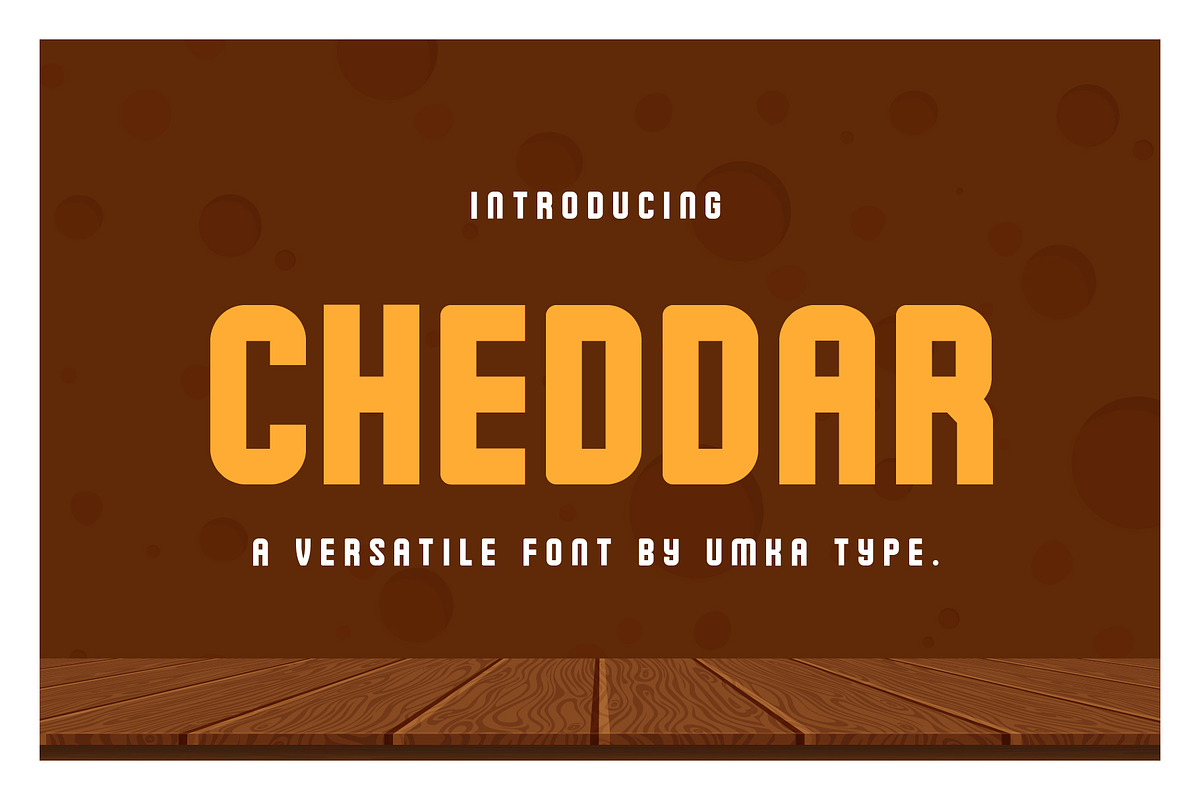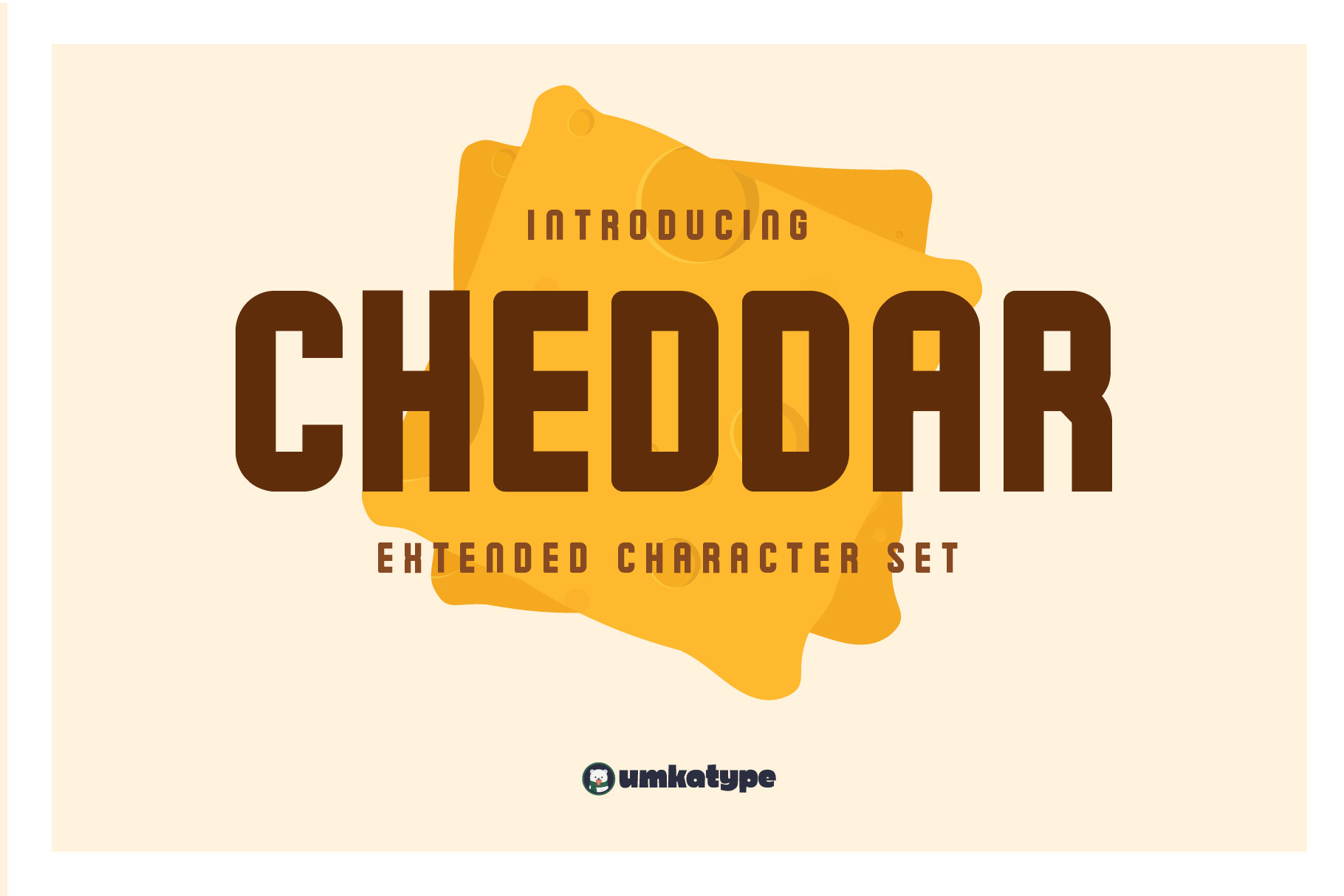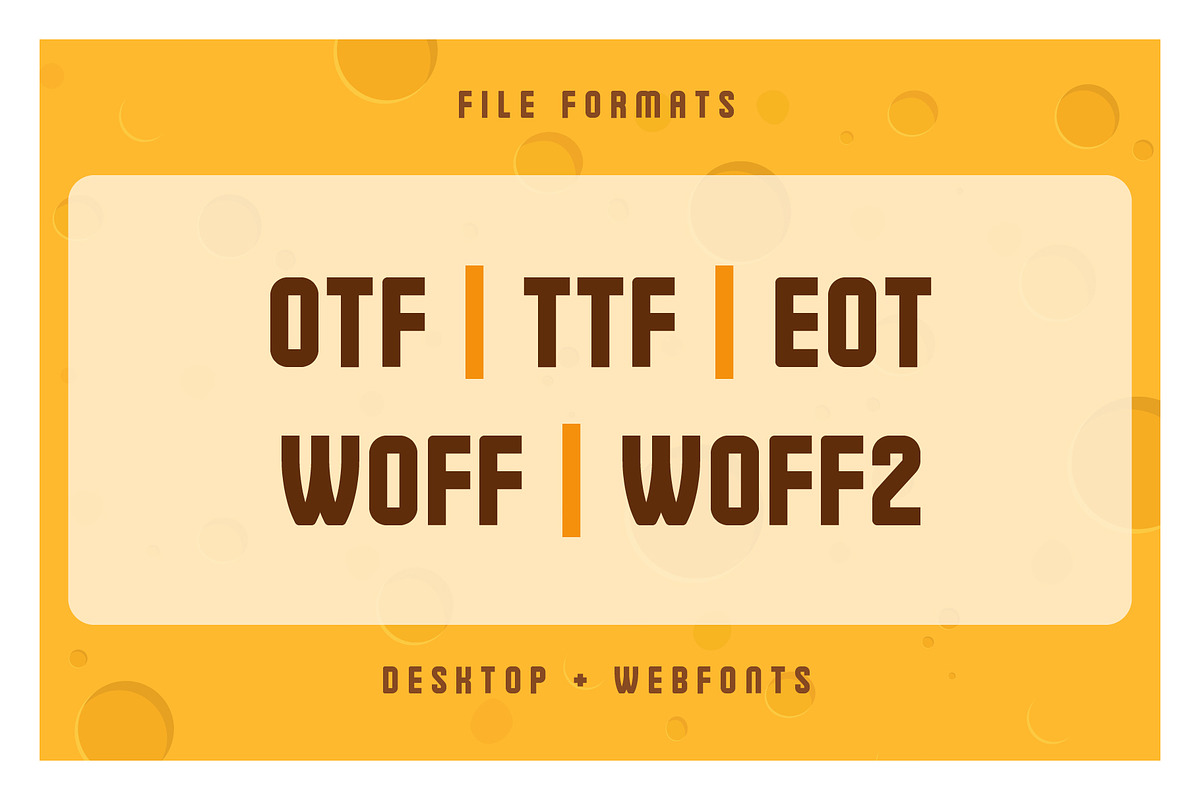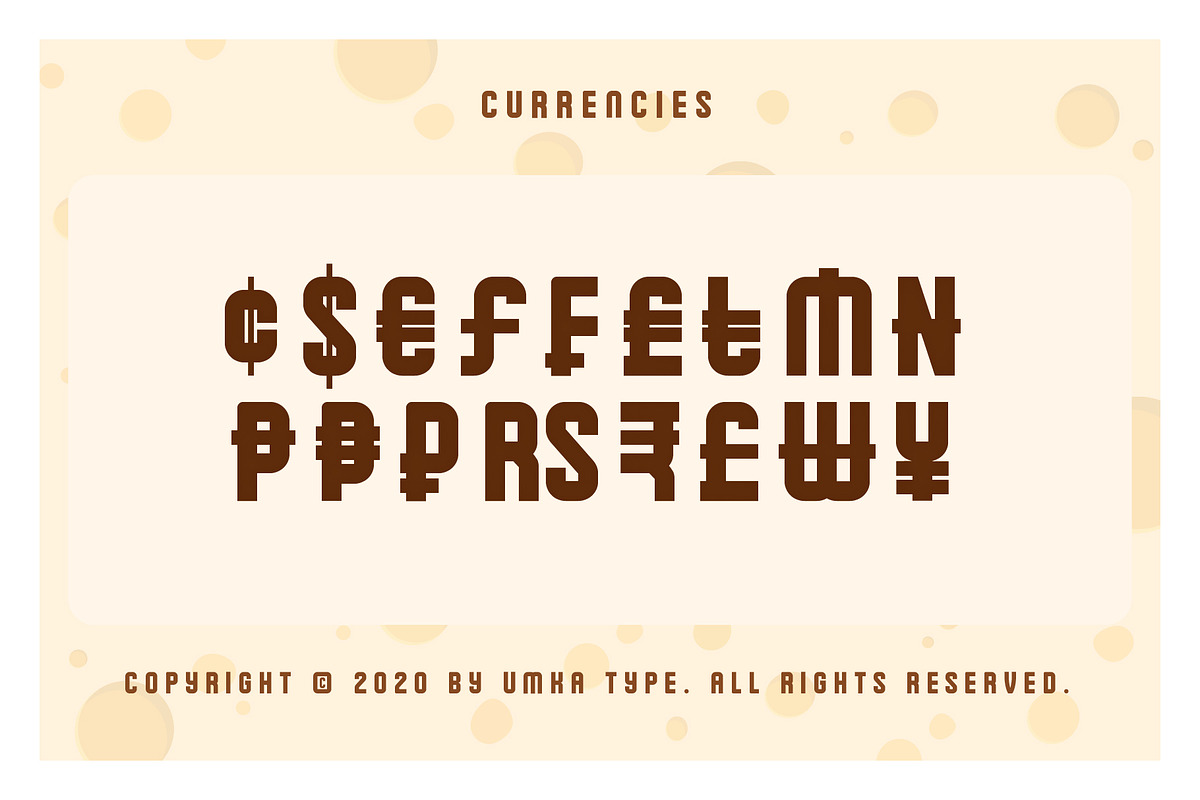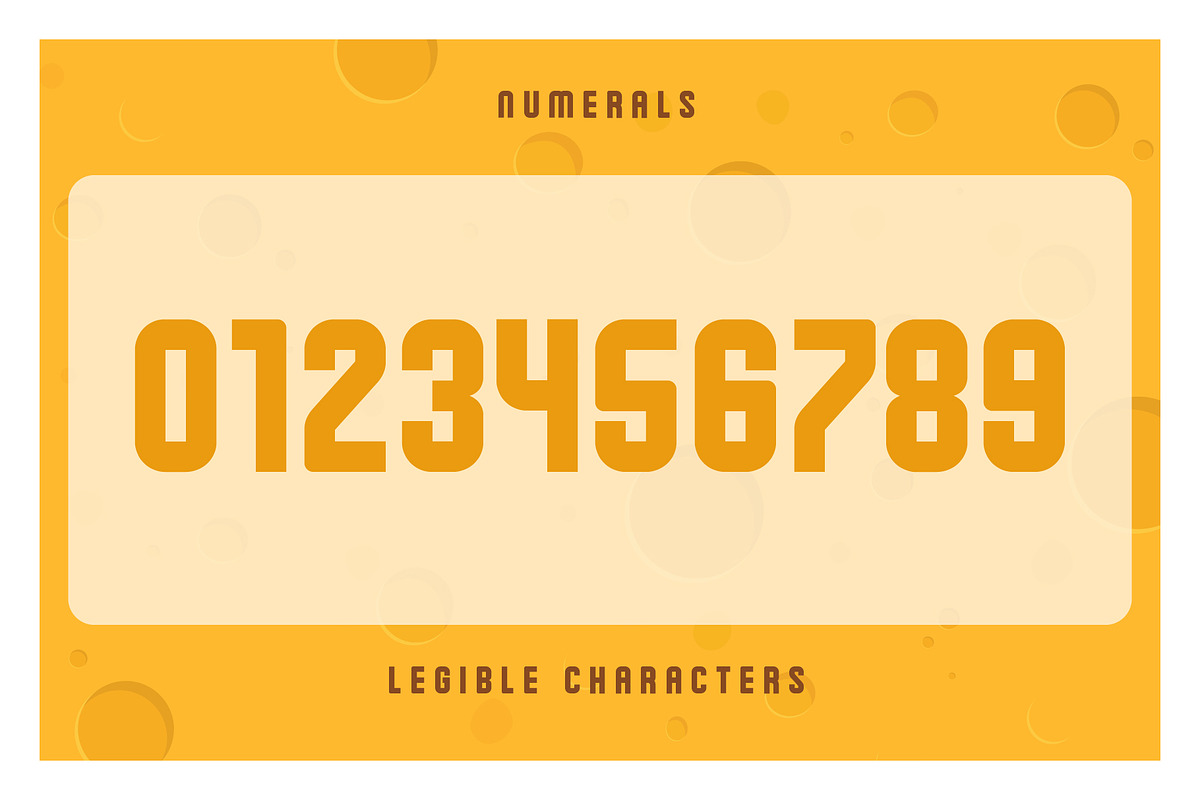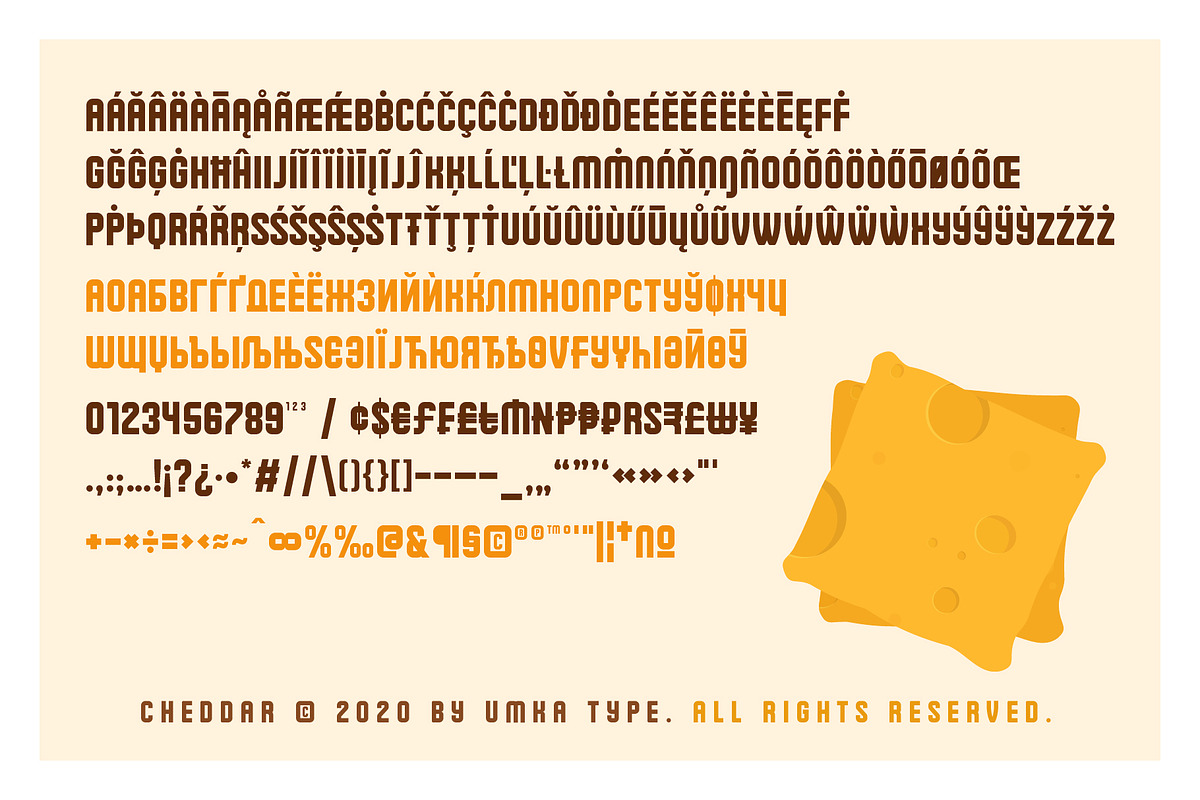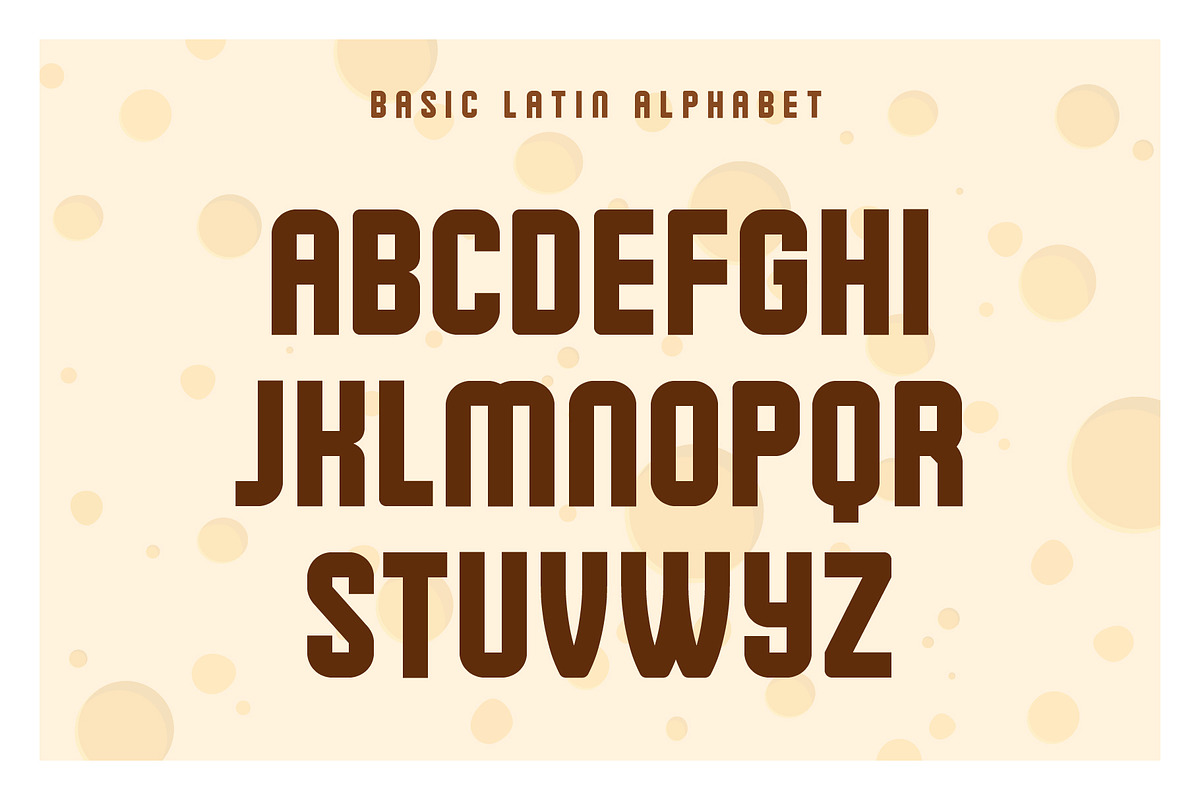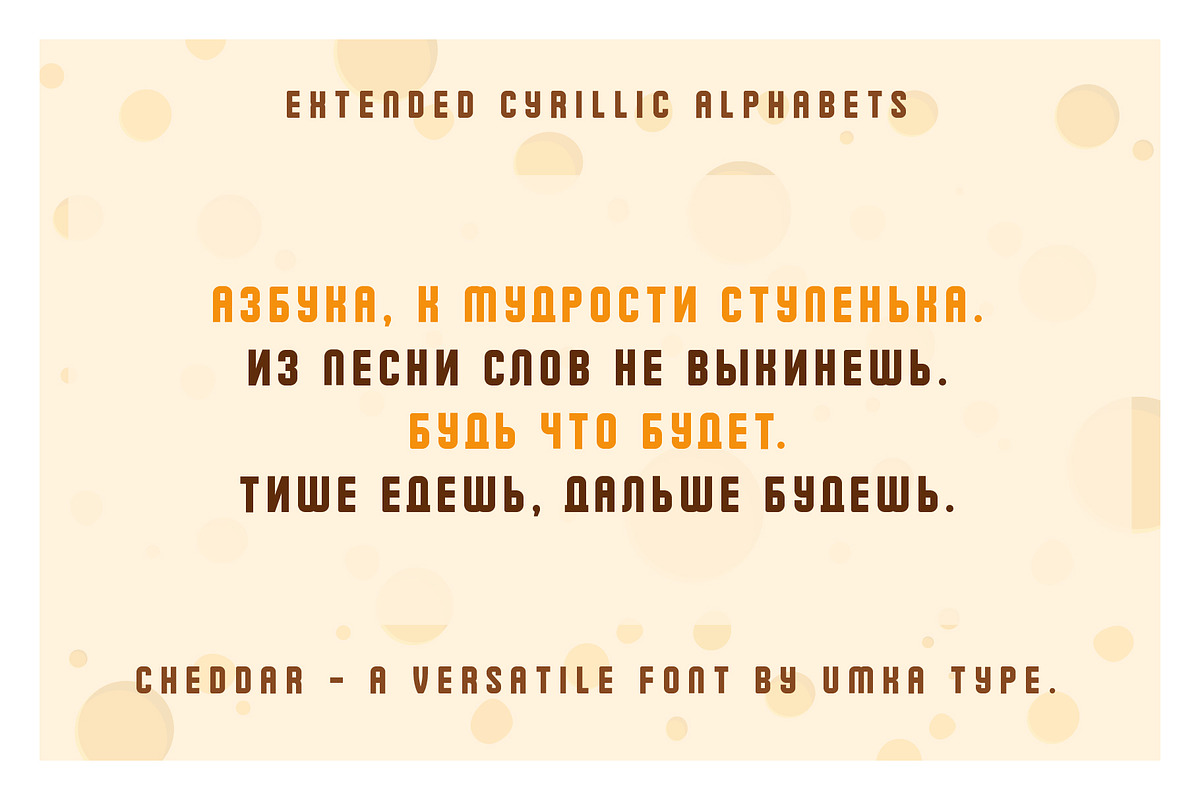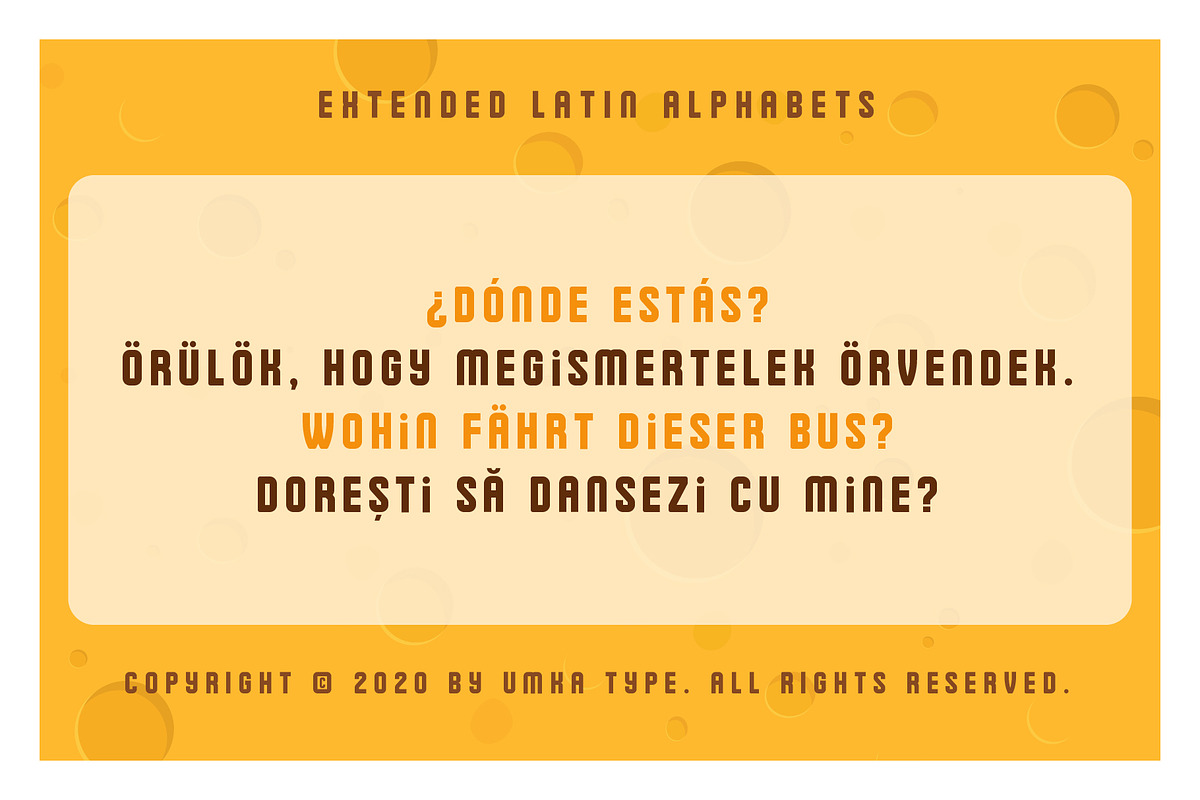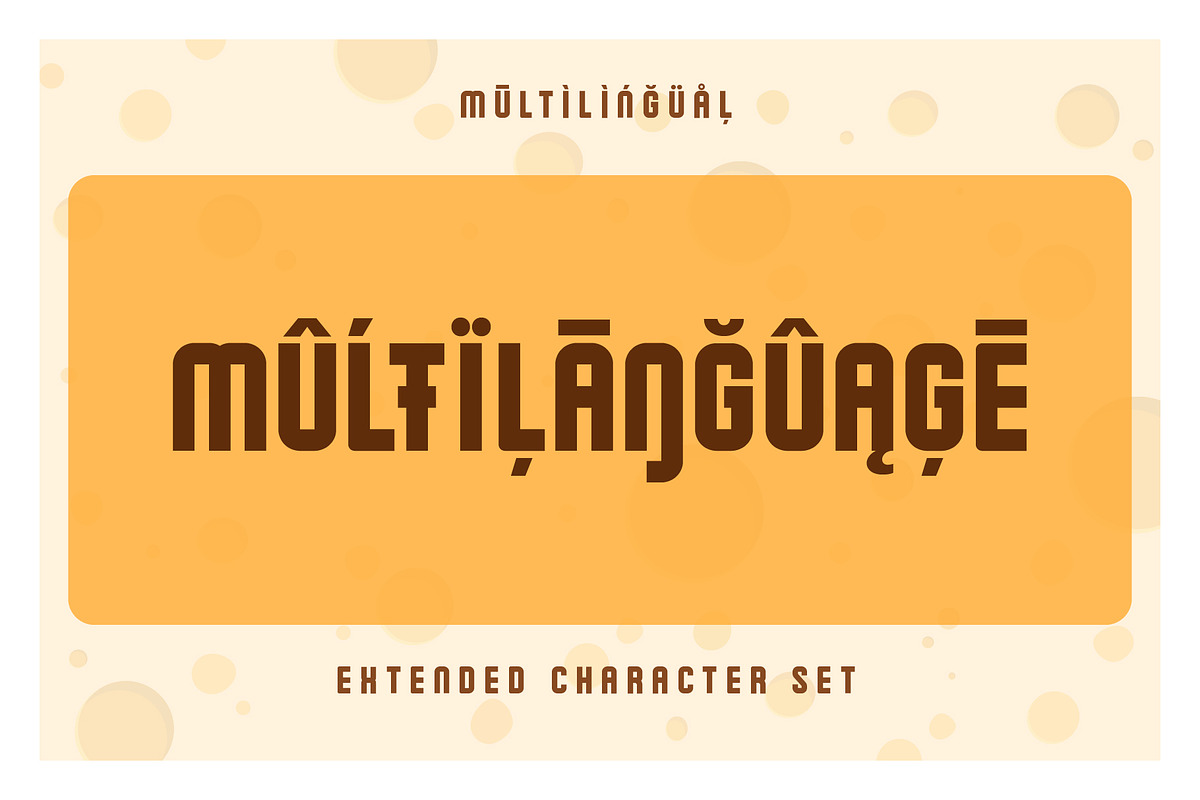
Cheddar Display Font
Cheddar - A Versatile Font
- Cheddar is a carefully crafted fun font.
- Multilingual: It has Extended Latin and Extended Cyrillic letters.
Cheddar created for games, web design, branding and social media works.